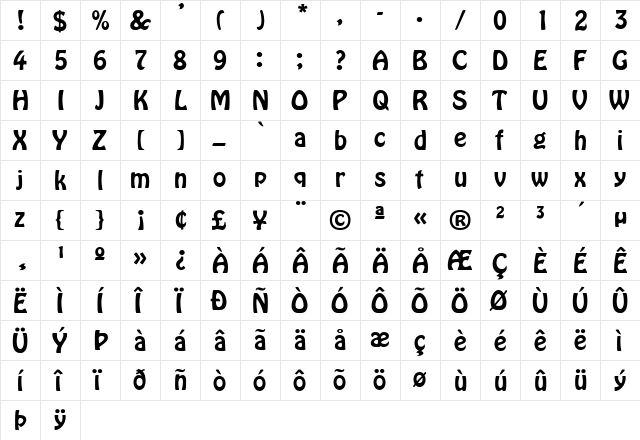
HomewardBound Regular Font Preview
HomewardBound Regular
HomewardBound Regular Font Details
Design Context for HomewardBound Typeface
HomewardBound takes a measured approach to typography — its balanced proportions and neutral character make it a reliable workhorse for both digital and print work.